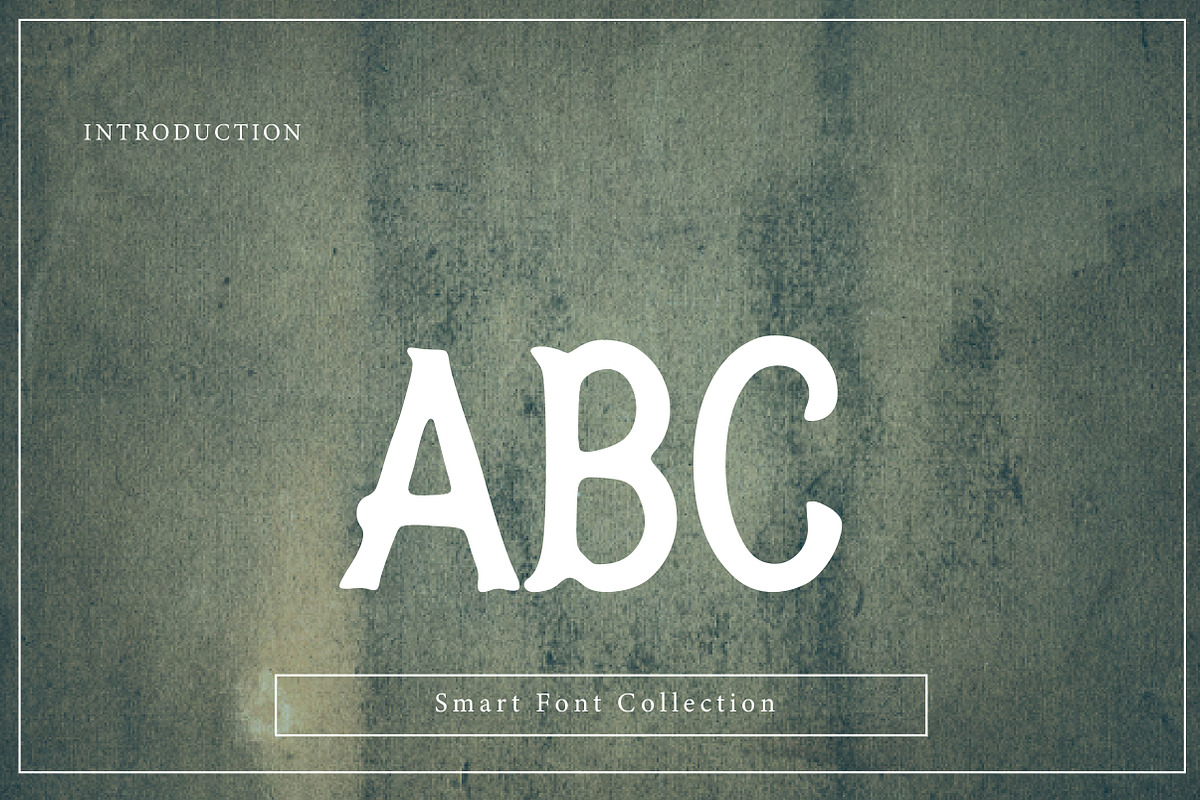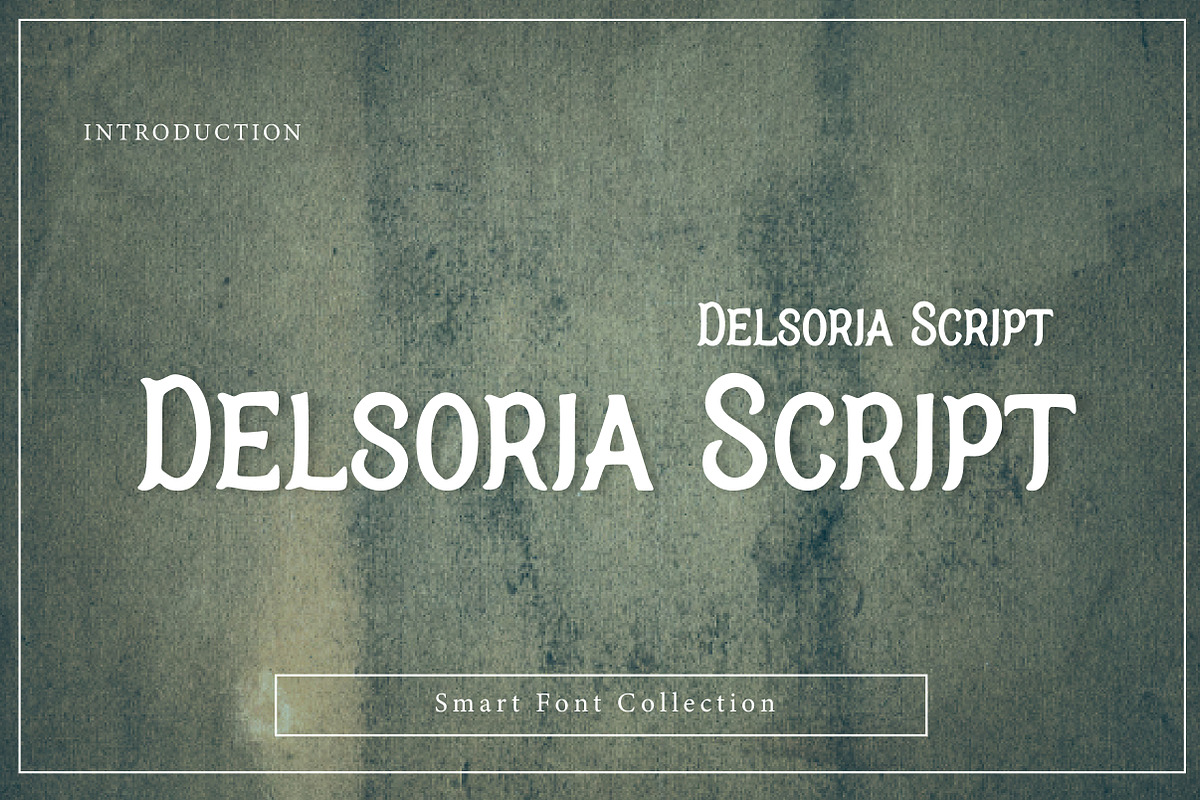
Delsoria Script
Delsoria Script is an elegant and modern handwritten script font designed with smooth flowing strokes and a stylish signature feel. With graceful curves and clean readability, this font is perfect for logos, branding, wedding invitations, quotes, social media posts, packaging, beauty labels, and premium typography projects. Delsoria Script brings a classy, romantic, and professional touch to your designs, making it ideal for luxury branding, boutique identity, and modern calligraphy layouts.